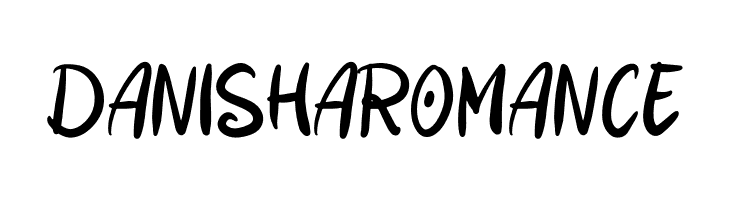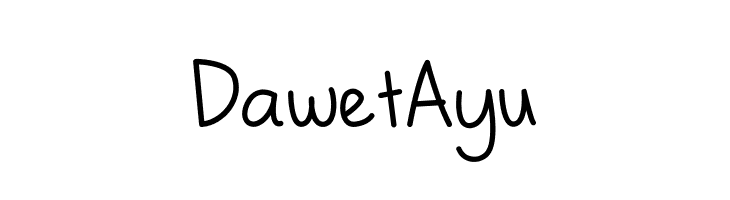
( Fonts by Inopatype )
A bold and expressive script font with dynamic curves and elegant swirls.
( Fonts by imagex )
A bold, playful handwritten font with a whimsical and artistic style.
( Fonts by Lantype Studio )
A playful, handwritten font with smooth, rounded edges and a casual style.
( Fonts by Darrell Flood )
A bold, playful font with rounded edges and a hand-drawn style.
( Fonts by Darrell Flood )
A bold, playful italic font with rounded, flowing characters.
( dccanim.deviantart.com )
A playful, handwritten font with rounded, consistent strokes and a casual feel.
( dccanim.deviantart.com )
A bold, playful font with a hand-drawn, casual style.
( dccanim.deviantart.com )
A playful, bold font with exaggerated curves and a whimsical style.
( dccanim.deviantart.com )
A bold, hand-cut style font with a rugged, artistic appearance.
( Fonts by Graphicfresh )
A bold, blocky font with a modern and impactful style.